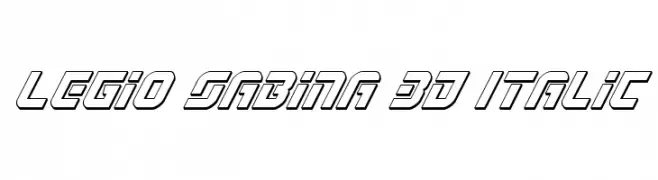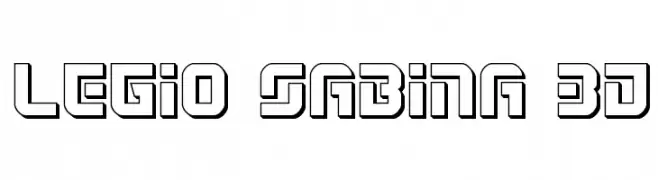
• Laser Wolf Title
A futuristic, angular font with a bold, geometric style.
• Laser Wolf Title Italic
A bold, italicized font with a futuristic, angular design.
• LaunchAttack-Regular
A bold, dynamic script font with fluid, connected characters and high contrast.
• Laura Hellaw
A fluid and elegant handwritten script with interconnected strokes.
• Layers
A textured, layered font with a vintage, hand-drawn aesthetic.
• Laylantia
An elegant script typeface with flowing, cursive letterforms and decorative swashes.
• LazyRidePersonalUse-Regular
An elegant, flowing script font with smooth, continuous strokes.
• Legio Sabina
A bold, geometric font with a futuristic and industrial style.
• Legio Sabina 3D
A bold, geometric 3D font with a modern, industrial style.
• Legio Sabina 3D Italic
A bold, 3D italic font with a futuristic and dynamic design.